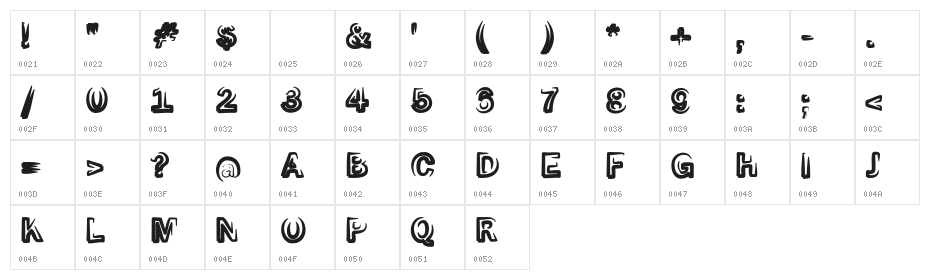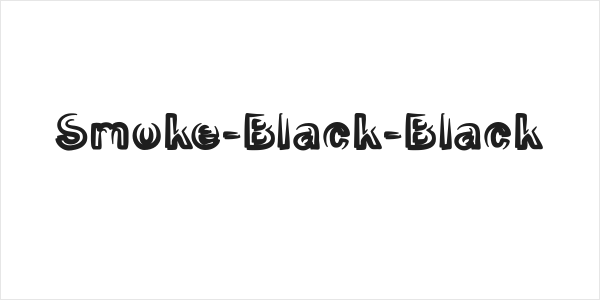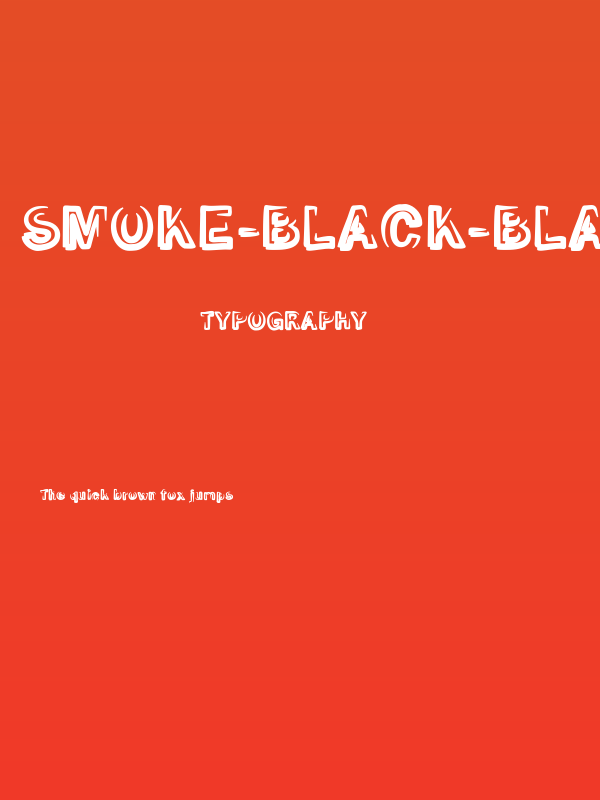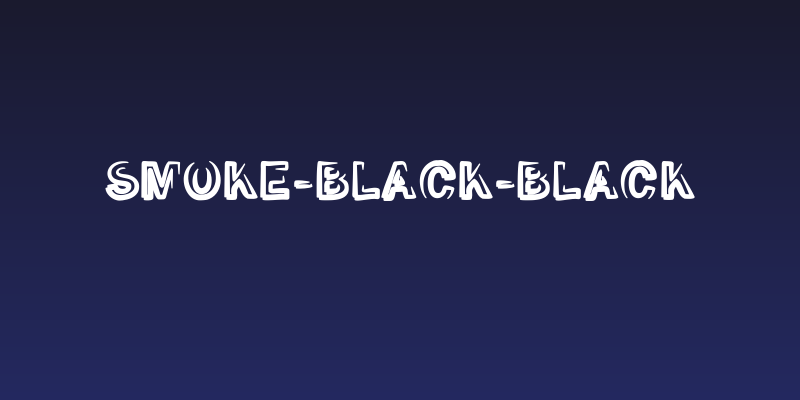
Smoke-Black-Black Font
Smoke-Black-Black Description
This font features a bold and dramatic style with a unique, shadowed effect that gives each character a three-dimensional appearance. The uppercase and lowercase letters are designed with a playful, yet strong presence, making them stand out. The numbers and special characters maintain this boldness, ensuring consistency across all glyphs. The font's thick strokes and shadowing create a sense of depth and movement, making it ideal for eye-catching designs. Its decorative nature is perfect for projects that require a touch of creativity and flair.
Proposed ProjectsThis font is perfect for posters, headlines, logos, and any design project that requires a bold and artistic touch.